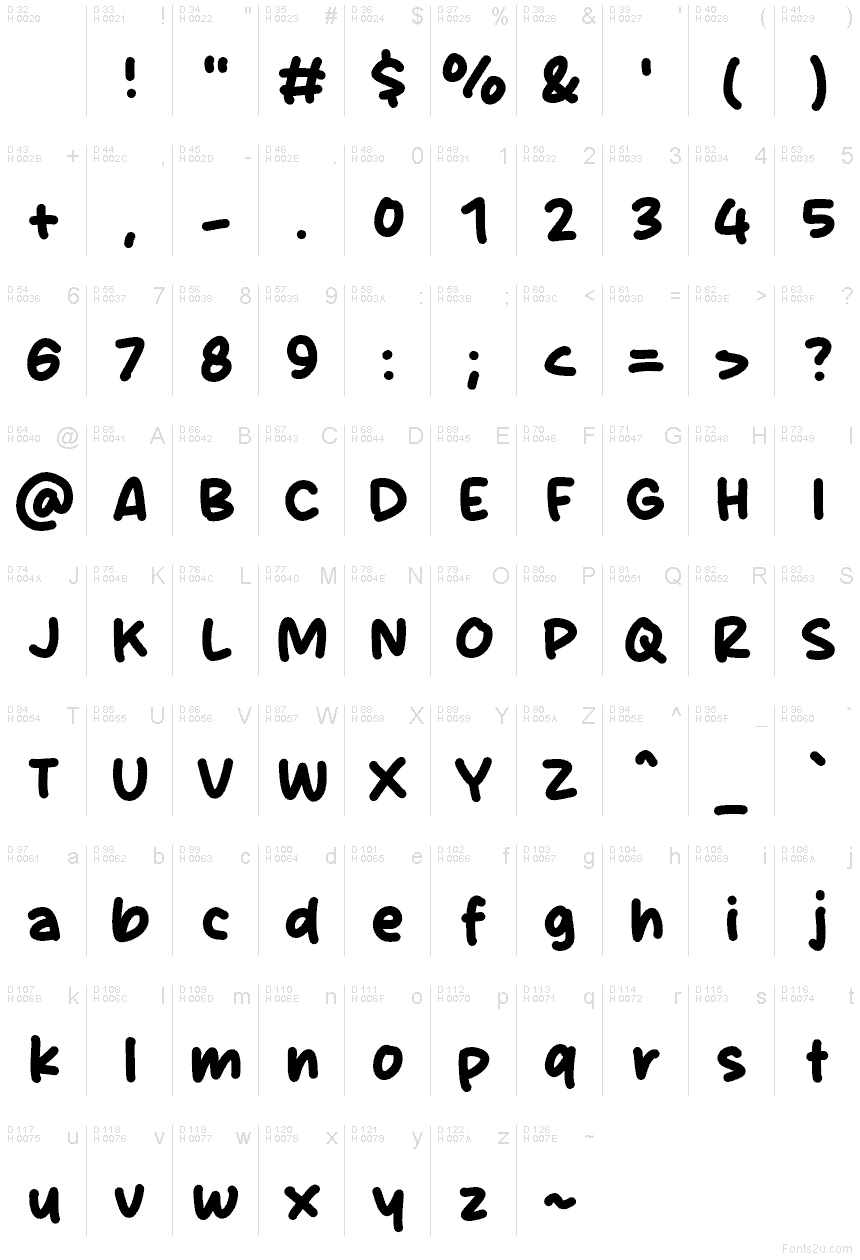
Shine Monday
Shine Monday font from Origin Type is a free handwritten font that has a casual, modern, and approachable style. Its energy shines through thanks to its uneven baselines and the carefully drawn imperfections of each character. Friendly by nature, this font will bring joy to your projects, not to mention increase audience engagement.
Feel free to use it for posters, ads, magazines, cover pages, t-shirts or apparel designs. Other great ideas where Shine Monday will work include social media banners/posts/accounts/pages/ads as well as story highlights in addition to packaging and merchandise among others.